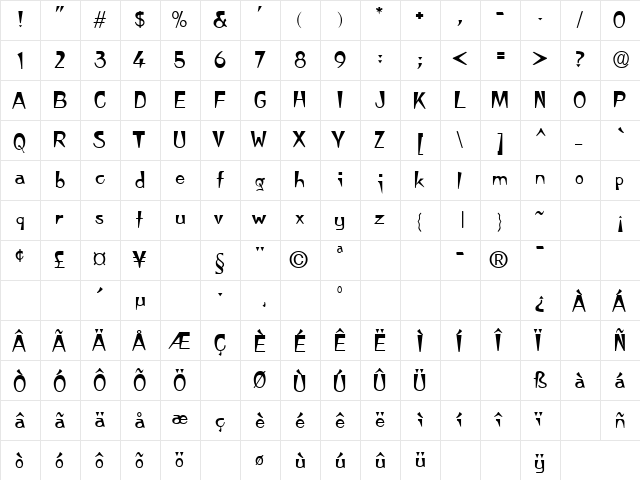
Greenlawn Regular
Design Context for Greenlawn Typeface
Greenlawn is a composed and adaptable typeface that performs quietly and consistently across a wide range of design contexts.